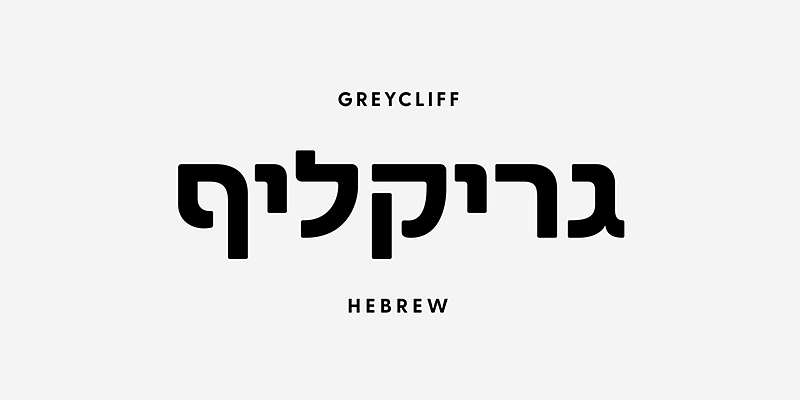
Greycliff Hebrew CF Font Free Download is a modern, versatile sans-serif typeface designed to seamlessly blend Hebrew and Latin scripts. Its clean lines, geometric shapes, and balanced proportions make it ideal for contemporary branding, editorial design, signage, websites, and any project that requires both style and legibility.
Greycliff Hebrew CF works well in both display settings and smaller body text, ensuring that your message is clear while maintaining an elegant aesthetic. It integrates smoothly with popular design software like Adobe Illustrator, Photoshop, Figma, and Canva, providing flexibility for both digital and print designs.